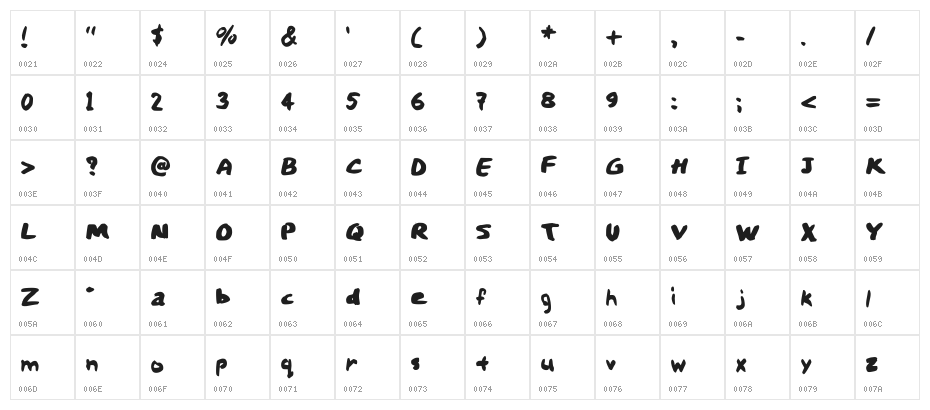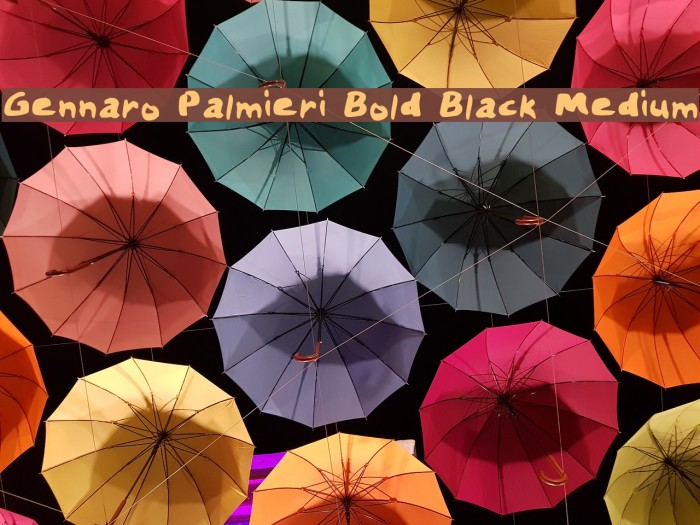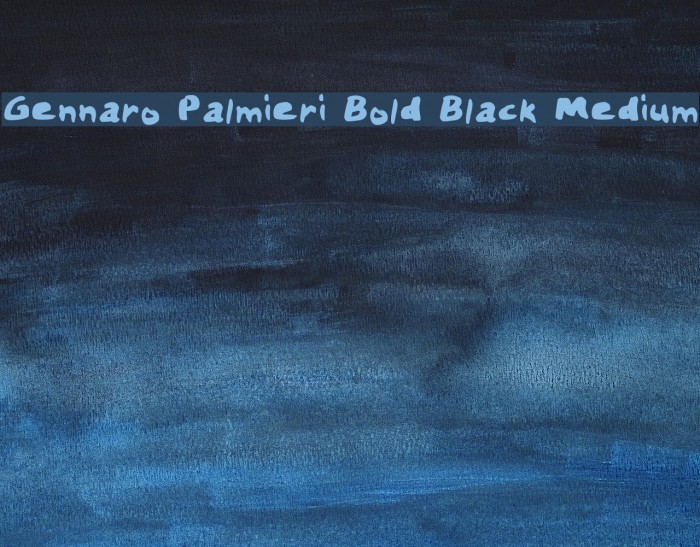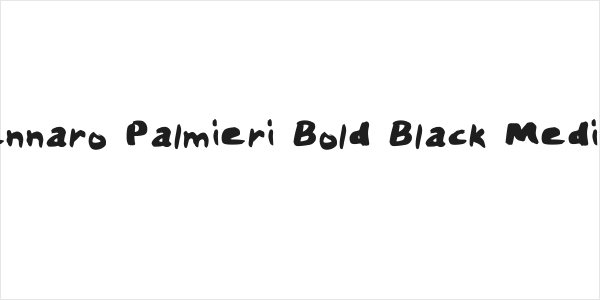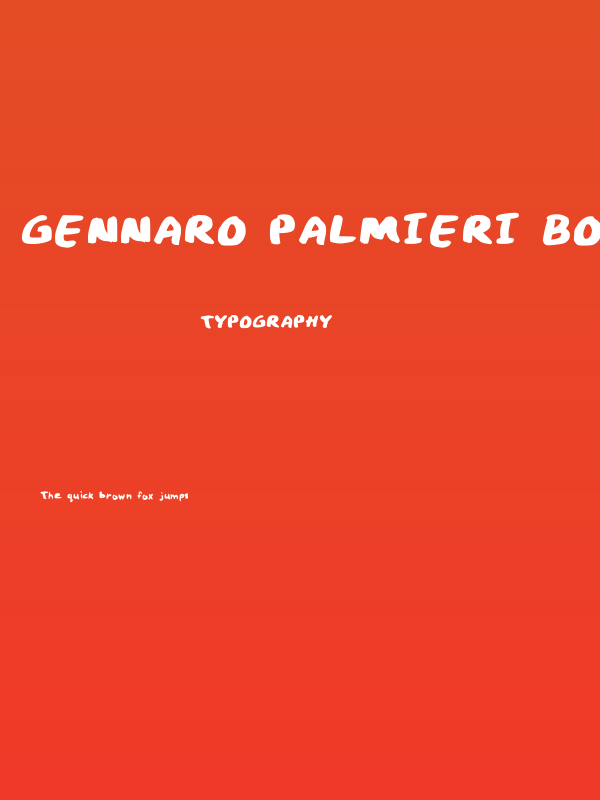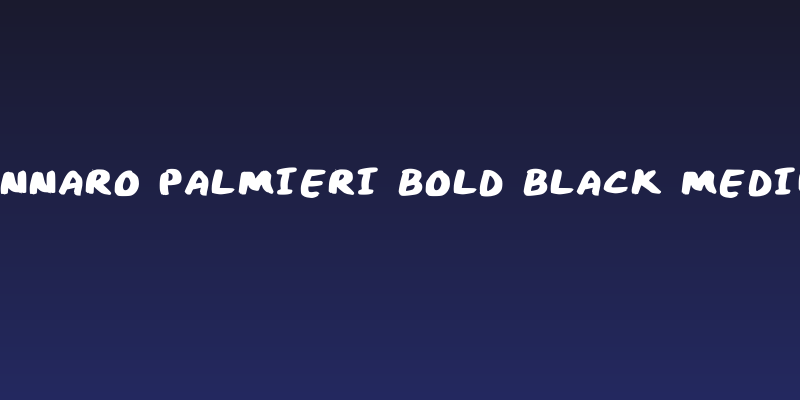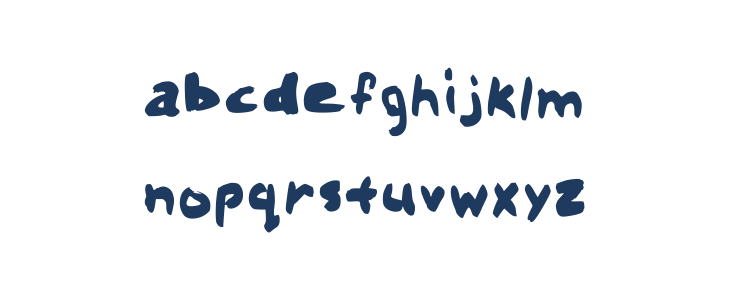
Gennaro Palmieri Bold Black Medium Font
Gennaro Palmieri Bold Black Medium Description
This font features a bold and expressive style with a handwritten appearance. The characters are thick and have a slightly irregular form, giving them a dynamic and energetic feel. The uppercase and lowercase letters maintain a consistent weight, contributing to a cohesive look. Numbers and special characters follow the same bold style, ensuring uniformity across all glyphs. The strokes are rounded, adding a friendly and approachable touch to the overall design. This font is ideal for projects that require a personal and informal tone.